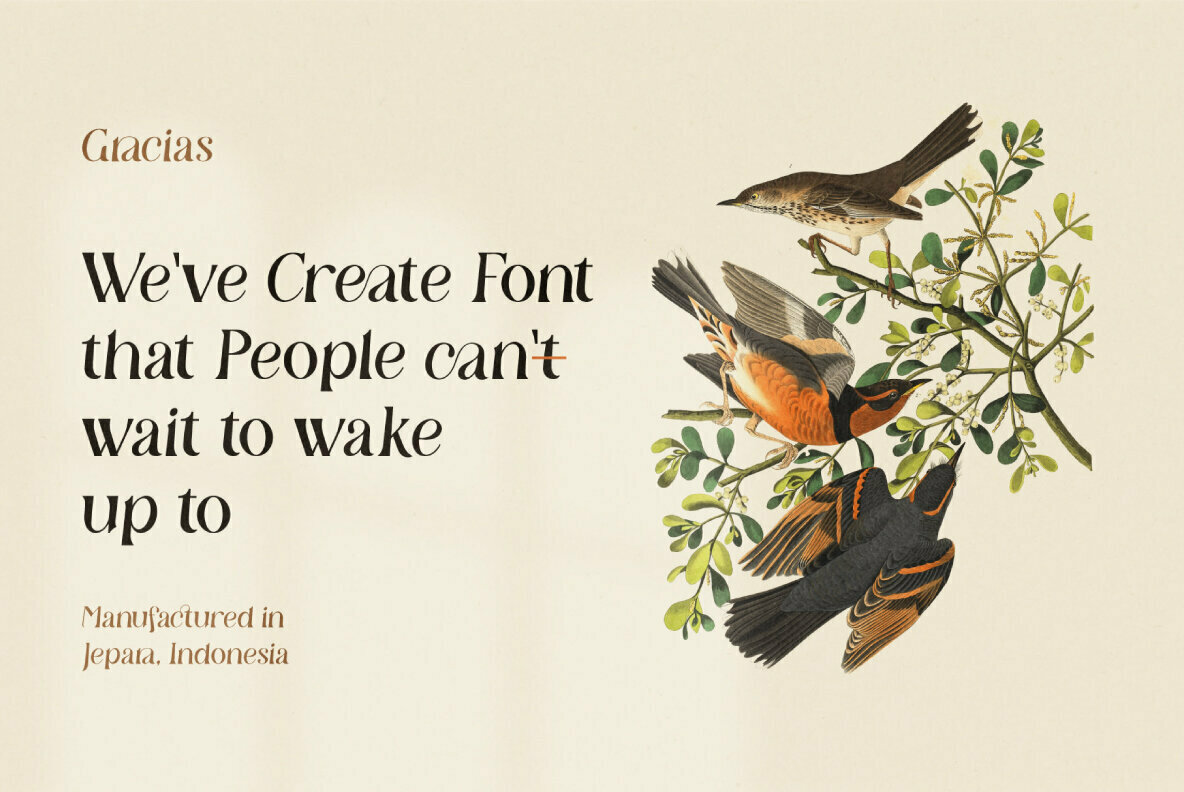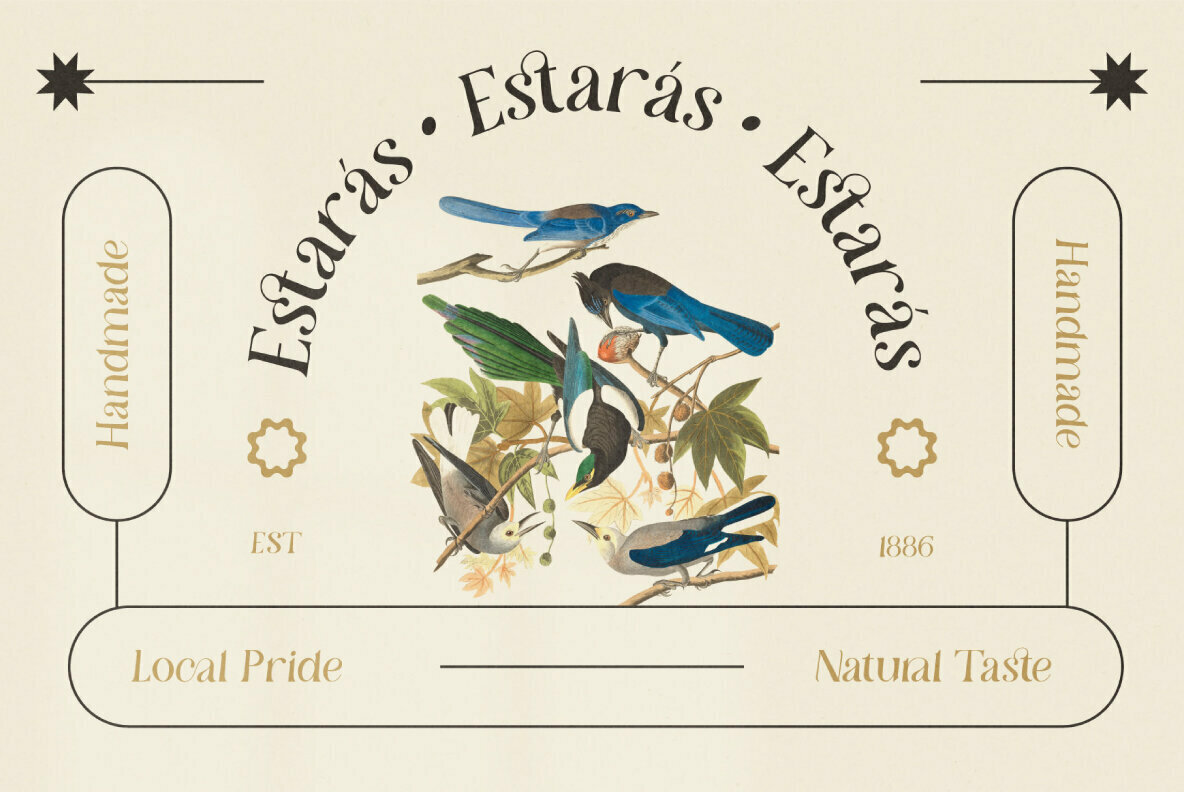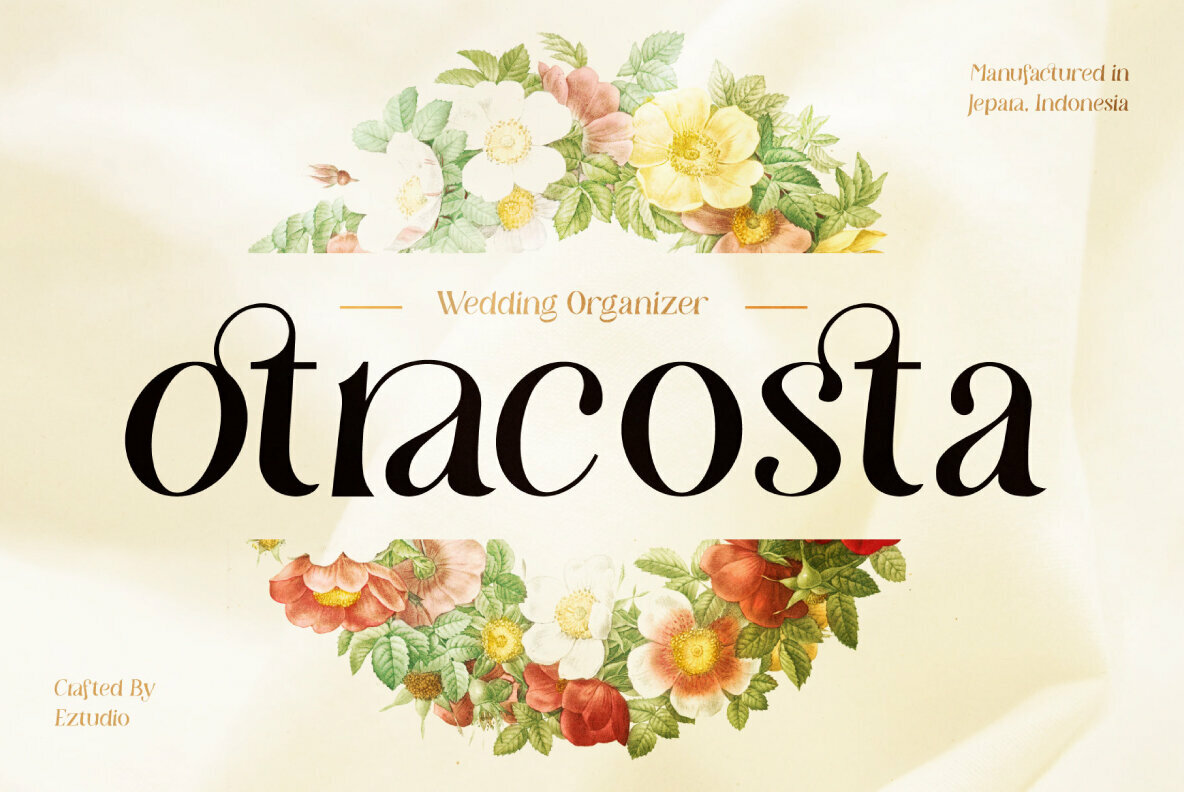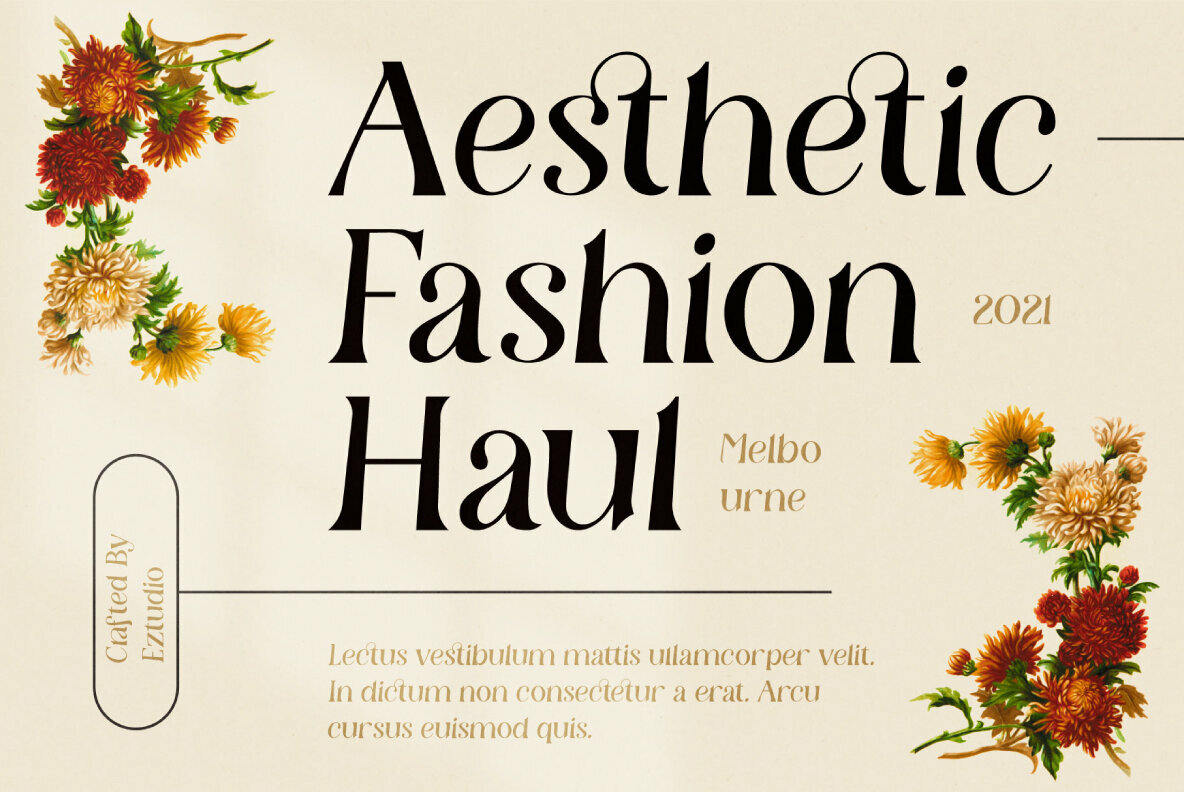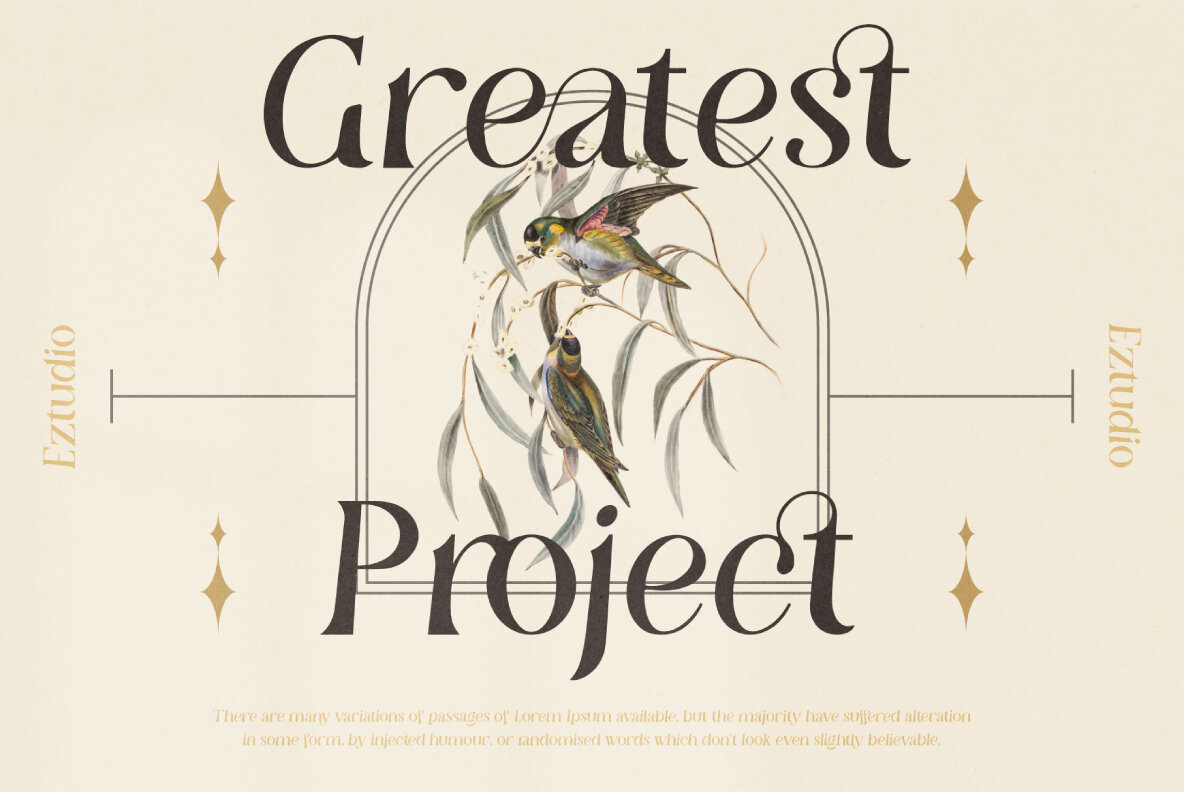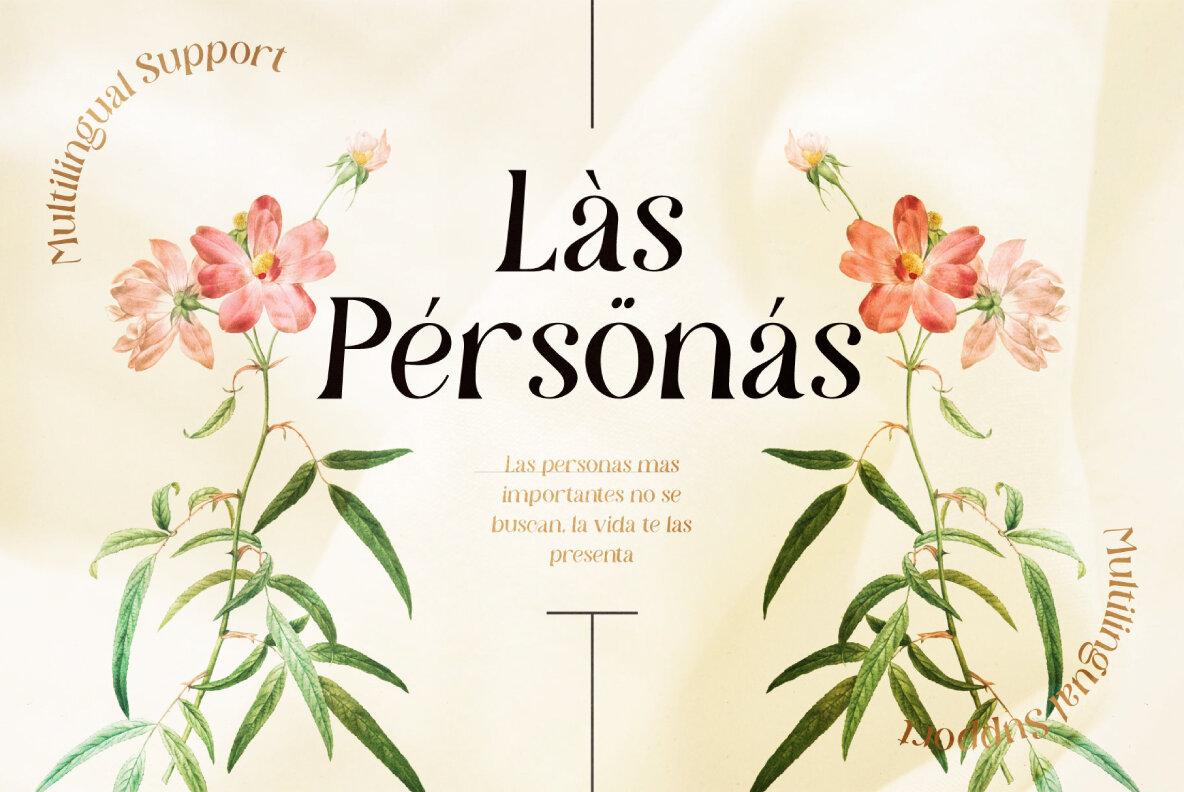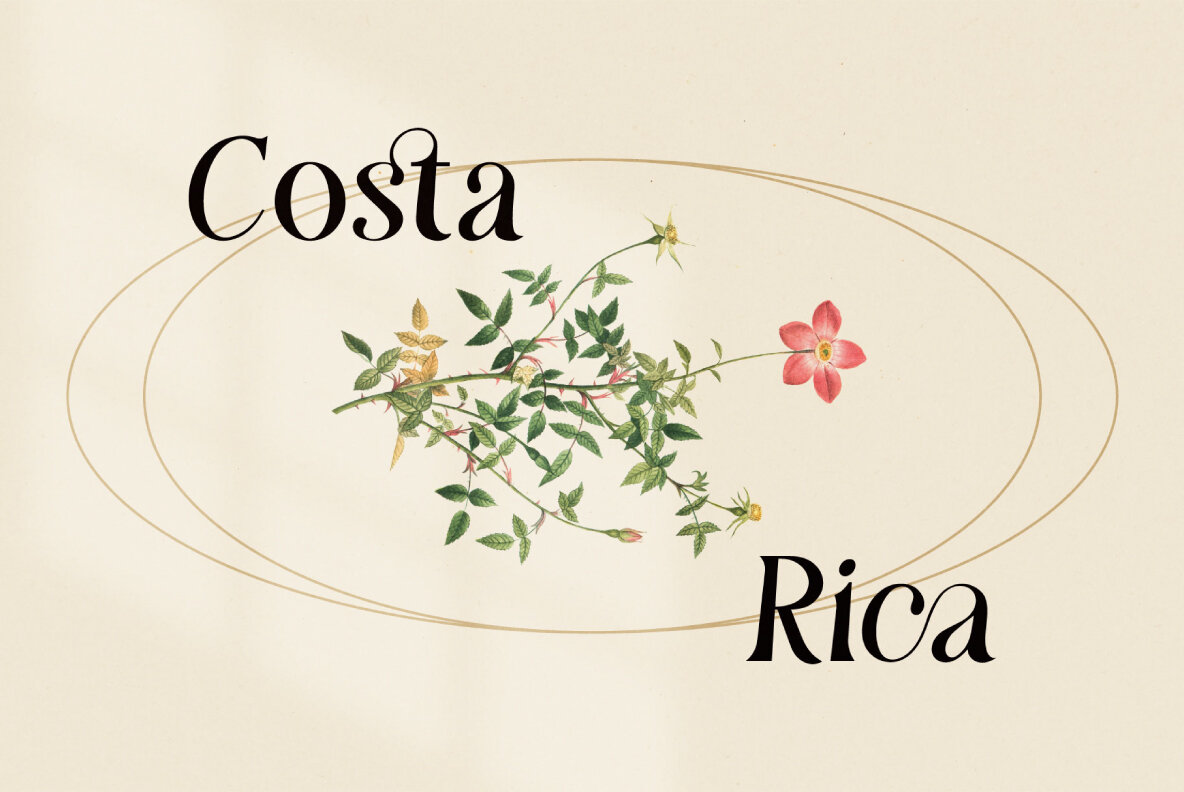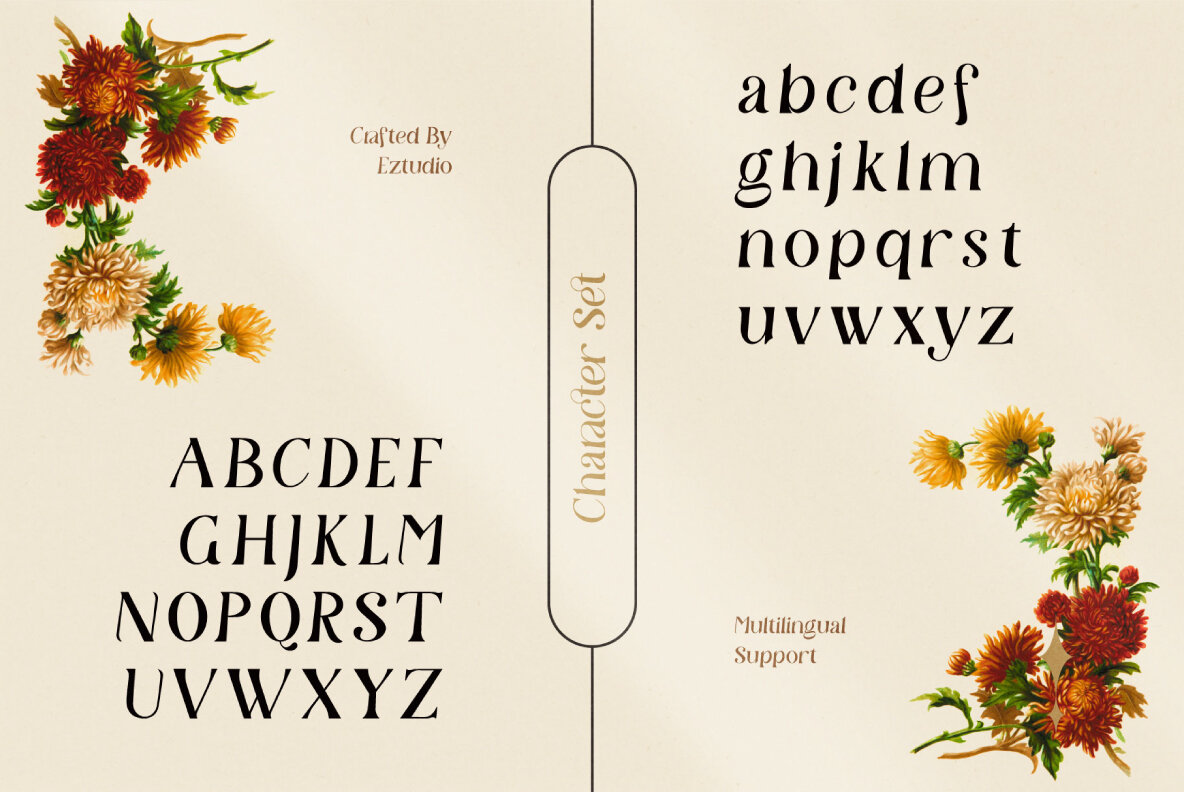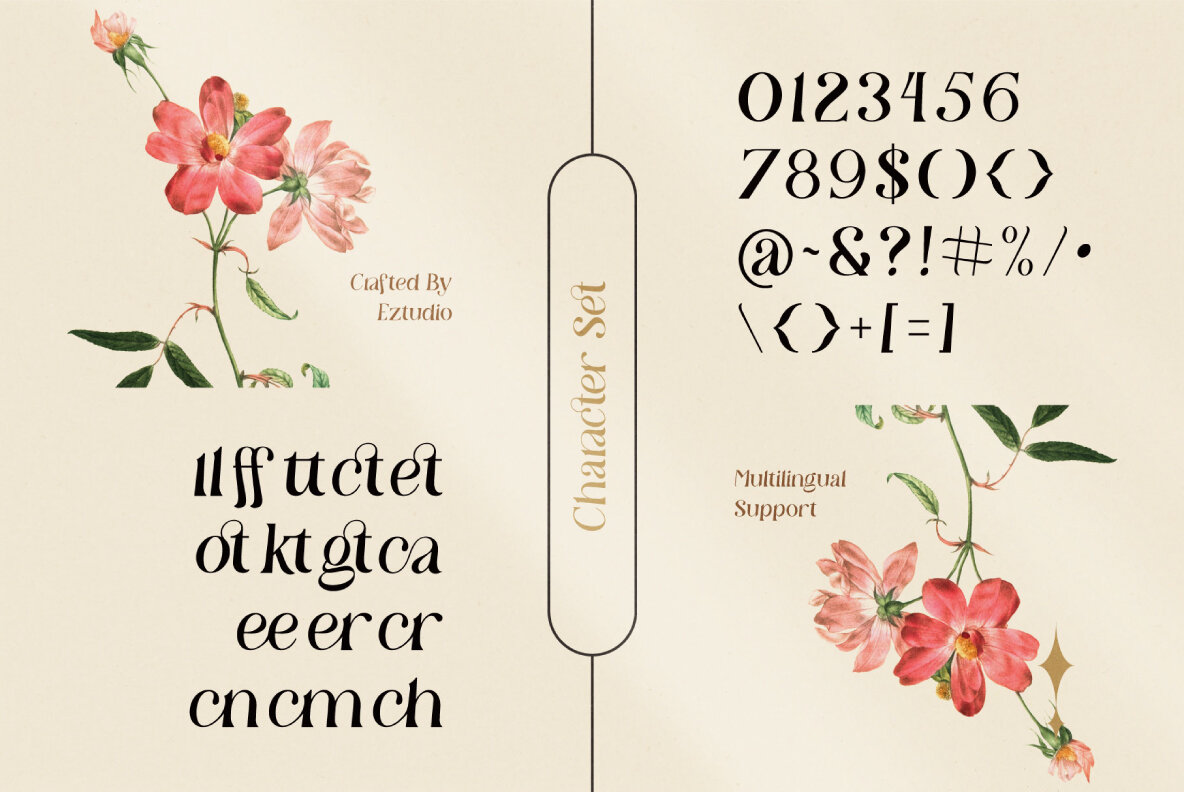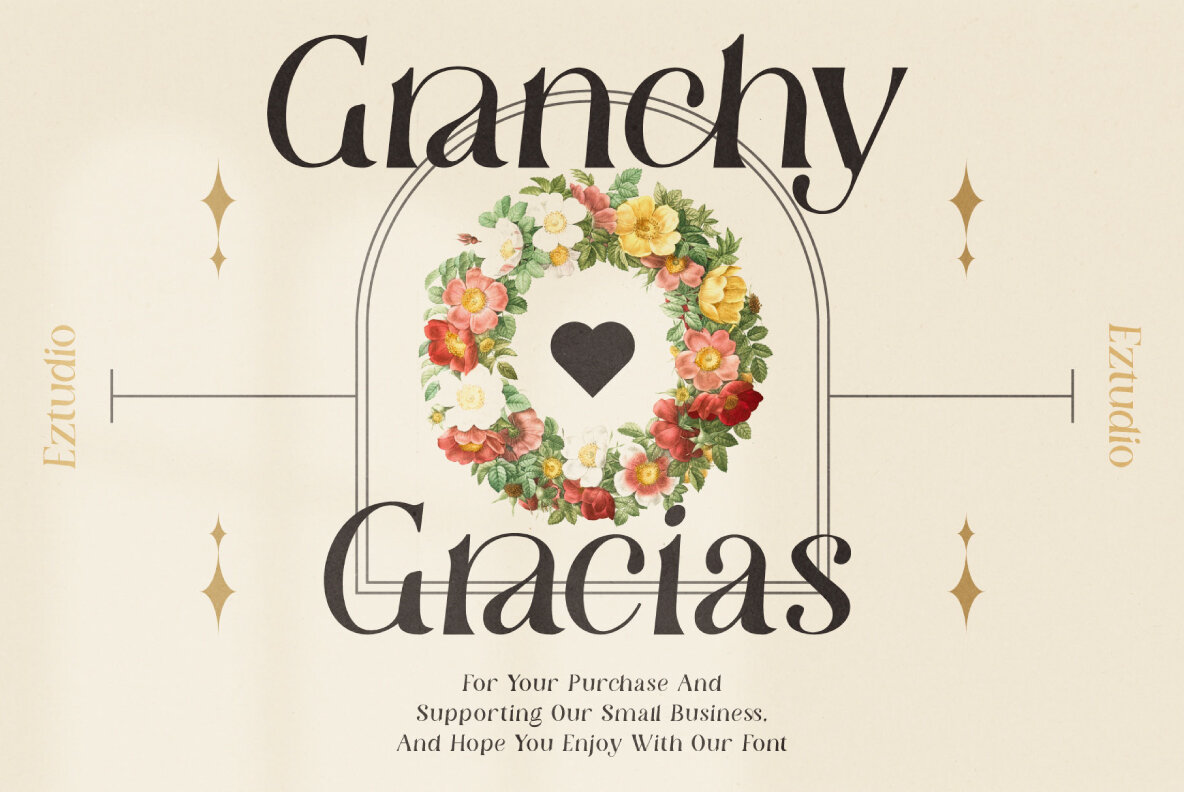
Granchy Font
Granchy
Granchy by Eztudio is a distinguished serif font, defined by its modern and aesthetic qualities. It is an ideal choice for various design projects, including advertising, branding, logotypes, packaging, titles, headlines, and editorial work.Granchy: An Aesthetic Serif for Modern Design Needs
Versatile Features